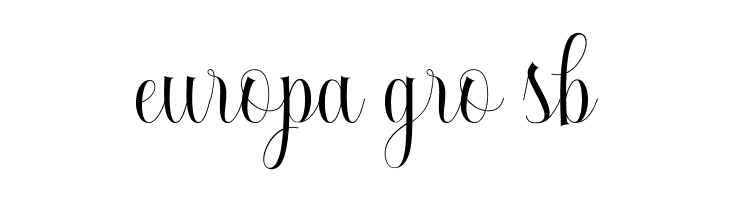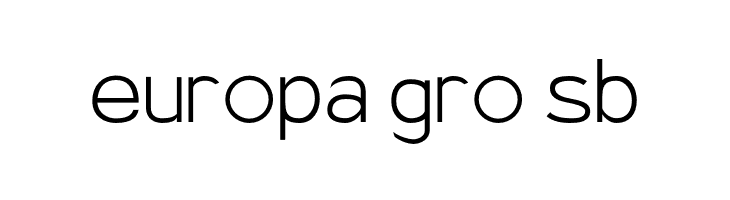
A modern, handwritten font with fluid, cursive strokes and elegant connections.
( Marc Lohner - www.marc-lohner.com )
A modern, rounded sans-serif font with smooth curves and a clean look.
An elegant and decorative script font with playful swirls and loops.
An elegant, decorative script font with intricate swirls and loops.
( Fonts by Deepak Dogra )
A bold, wide, and modern font with a strong, industrial feel.
A bold, textured font with a hand-drawn, sketch-like appearance.